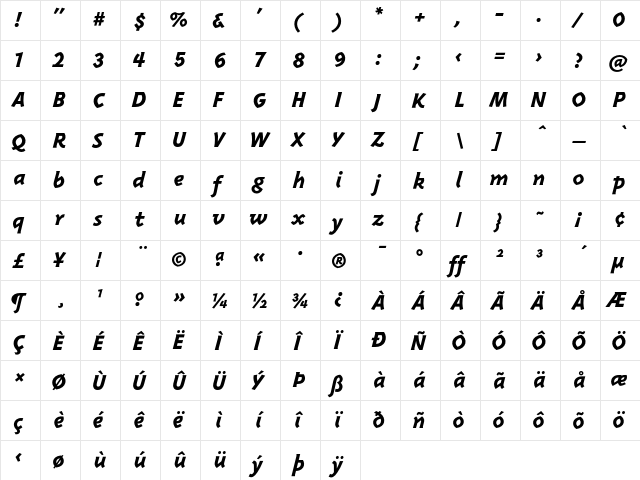
TriplexItalicExtraboldLining Regular Font Preview
Design Context for TriplexItalicExtraboldLining Typeface
TriplexItalicExtraboldLining takes a measured approach to typography — its balanced proportions and neutral character make it a reliable workhorse for both digital and print work. The slanted form adds forward momentum and visual energy. Its bold stroke weight gives it real presence on the page.